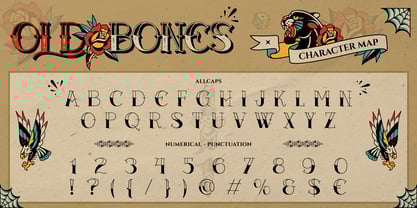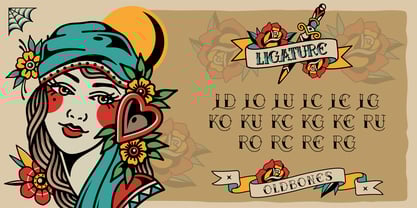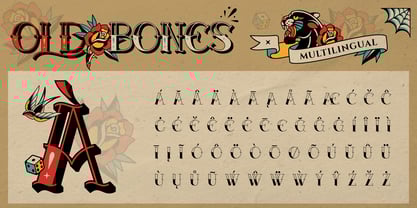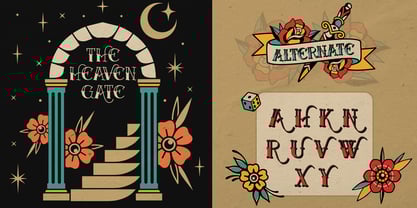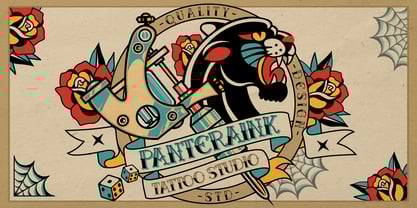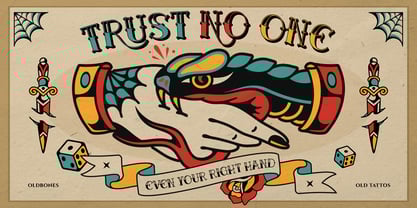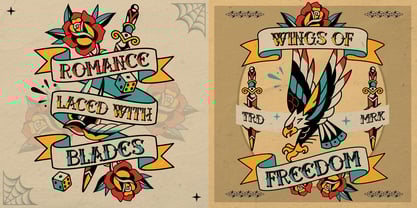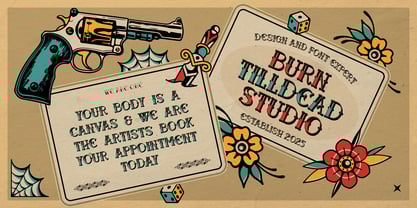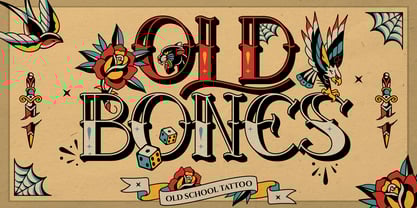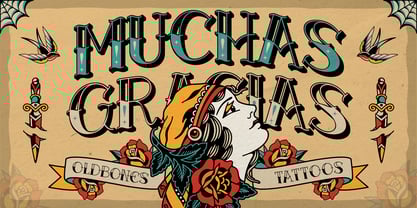
Oldbones
by Burntilldead
The Oldbones Font Family was designed by Eric Kurniawan and published by Burntilldead. Oldbones contains 2 styles and family package options. More about this family
Proudly present Oldbone, a font inspired by 1950s tattoo studio culture, bringing that classic ink vibe into modern design. It comes with two styles: Regular and 3D, making your typography look bolder, more alive, and full of character. With its traditional American tattoo style, Oldbone can be your inspiration for a lettering tattoo.
Perfect for clothing brands, barbershops, tattoo studios, or cafés with a vintage or rockabilly concept. Whether you're designing gig posters, album sleeves, or stickers, Oldbones will help your work stand out.
More than just letters — this font screams attitude and rebellion.
Features:
• Uppercase & Lowercase (All Caps)
• Number
• Punctuation
• Alternate
• Ligature
• Multilingual
Designers: Eric Kurniawan
Foundry: Burntilldead